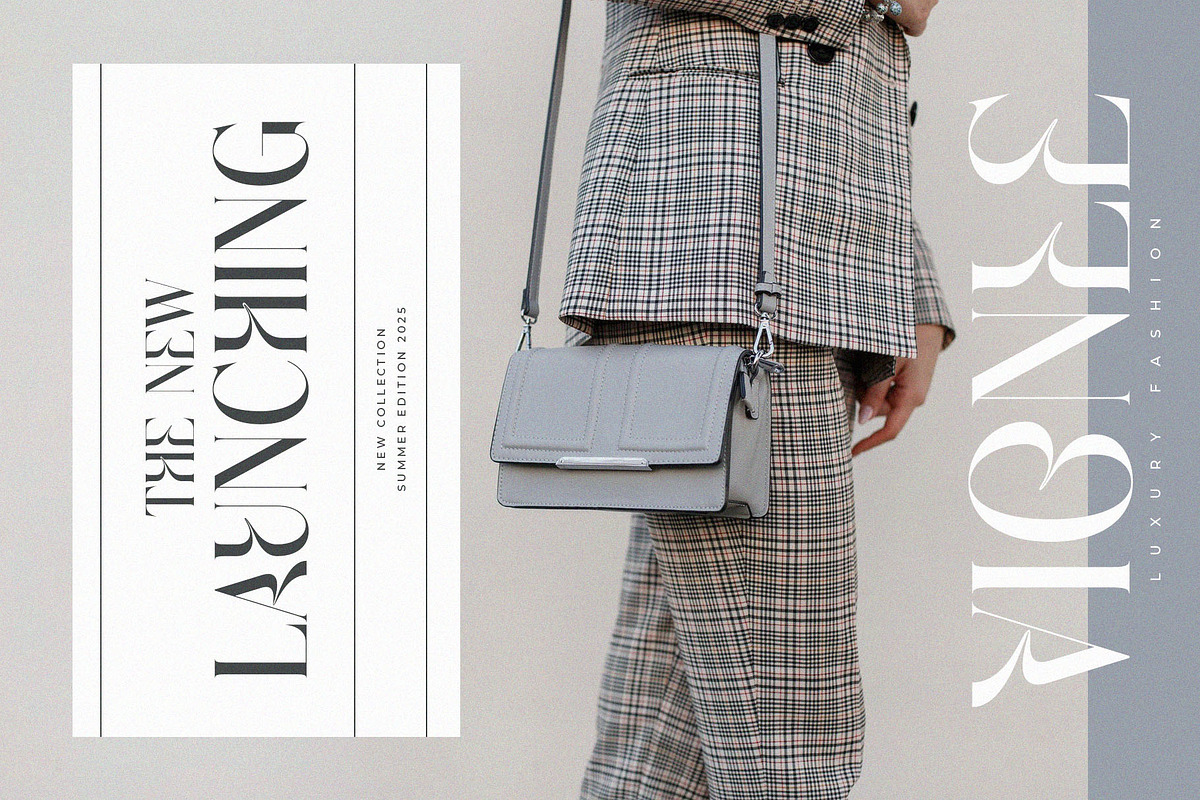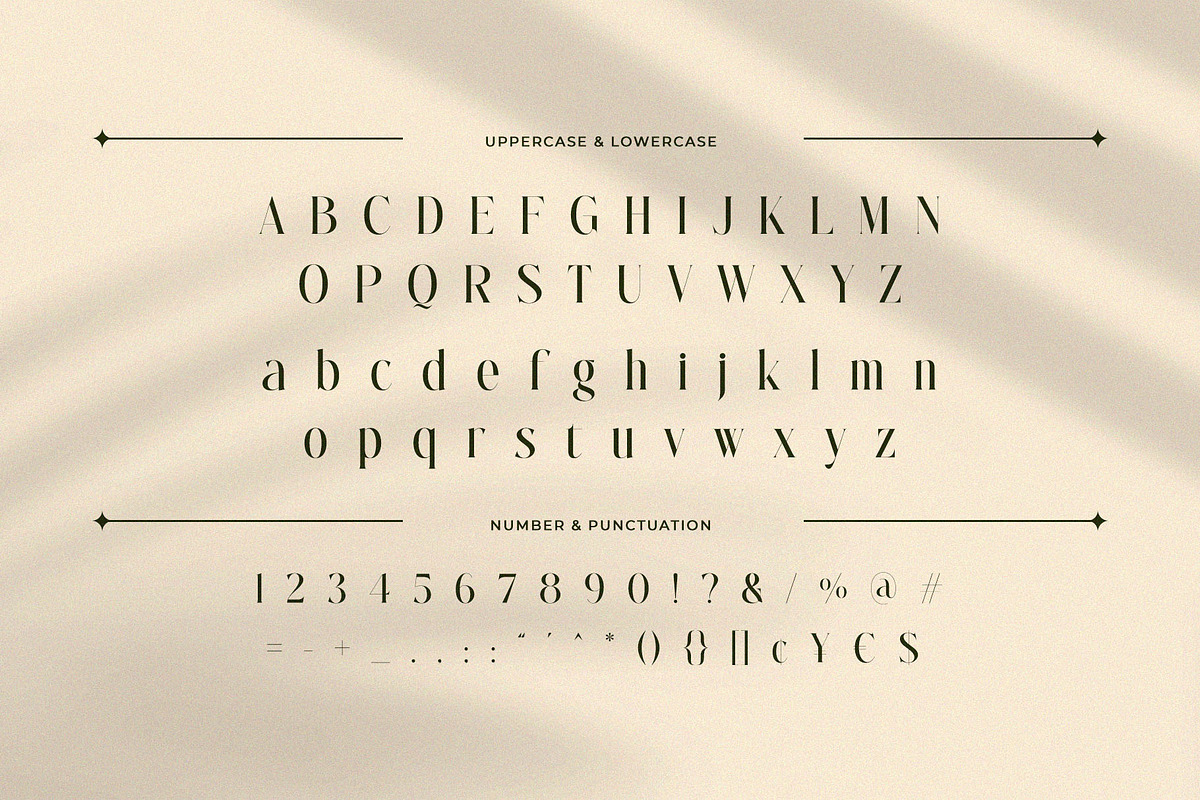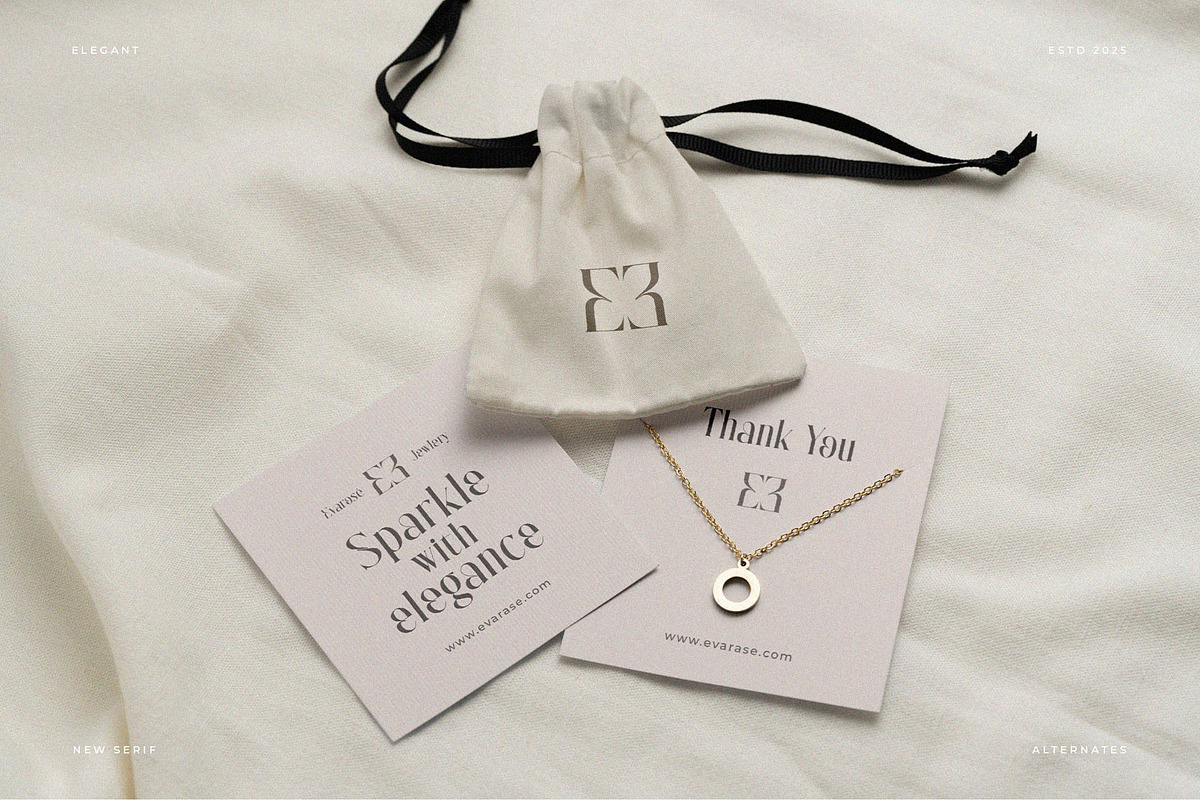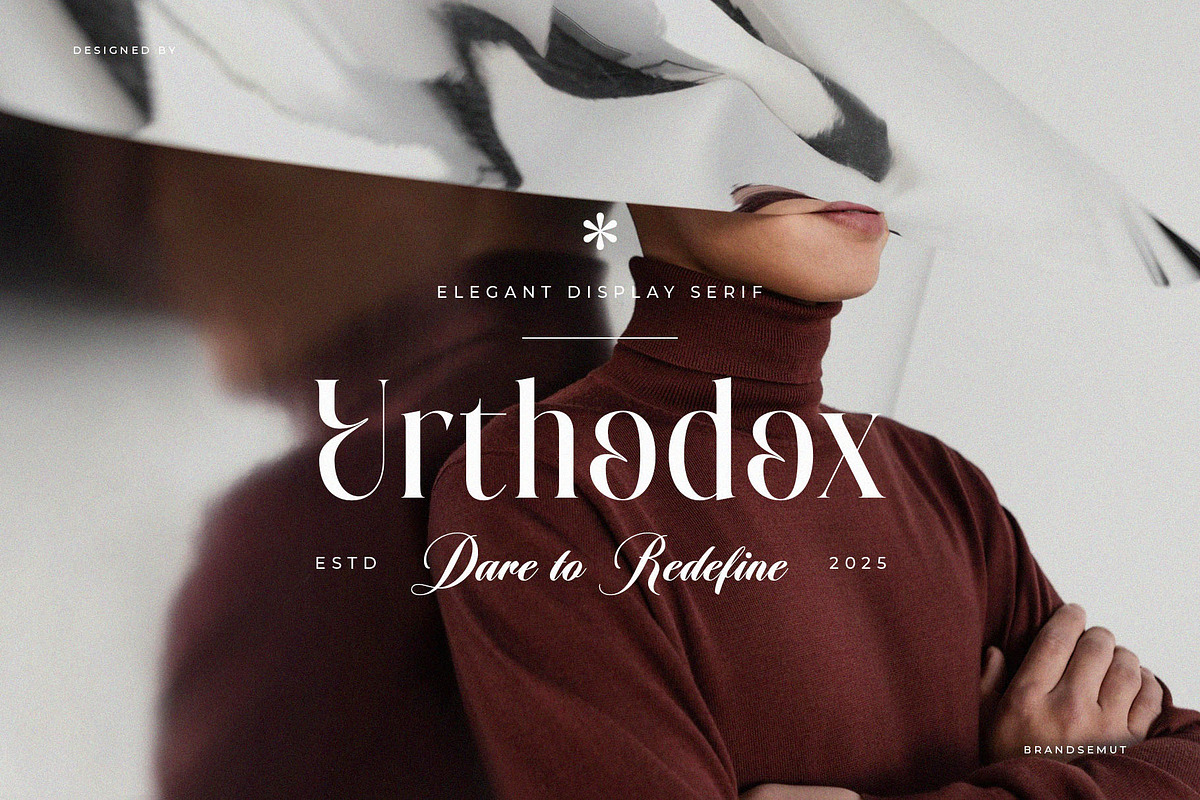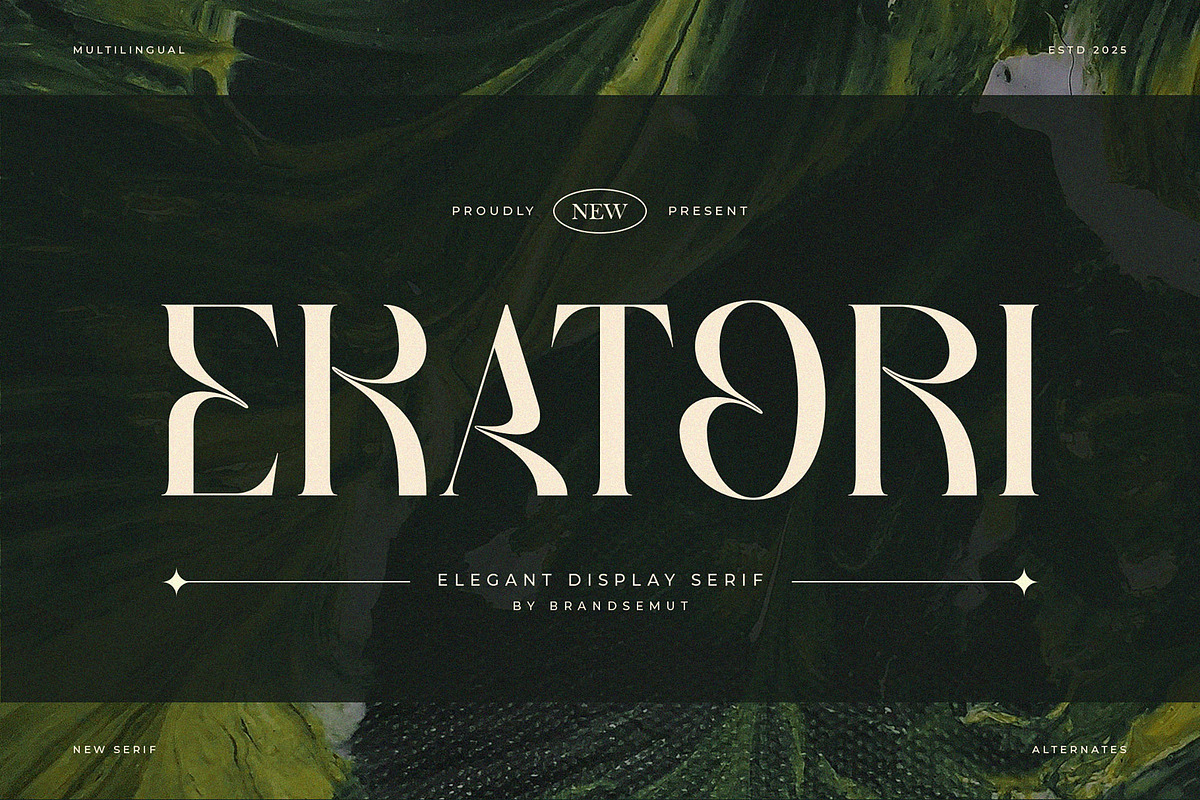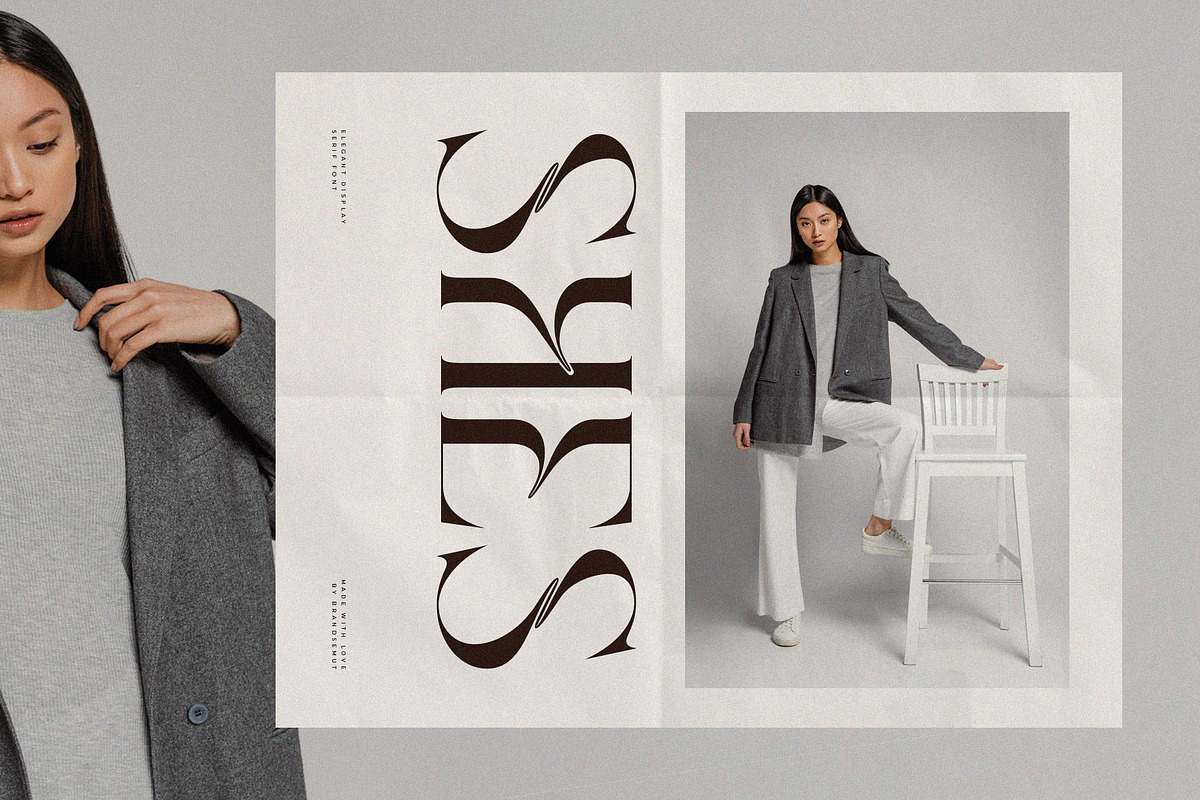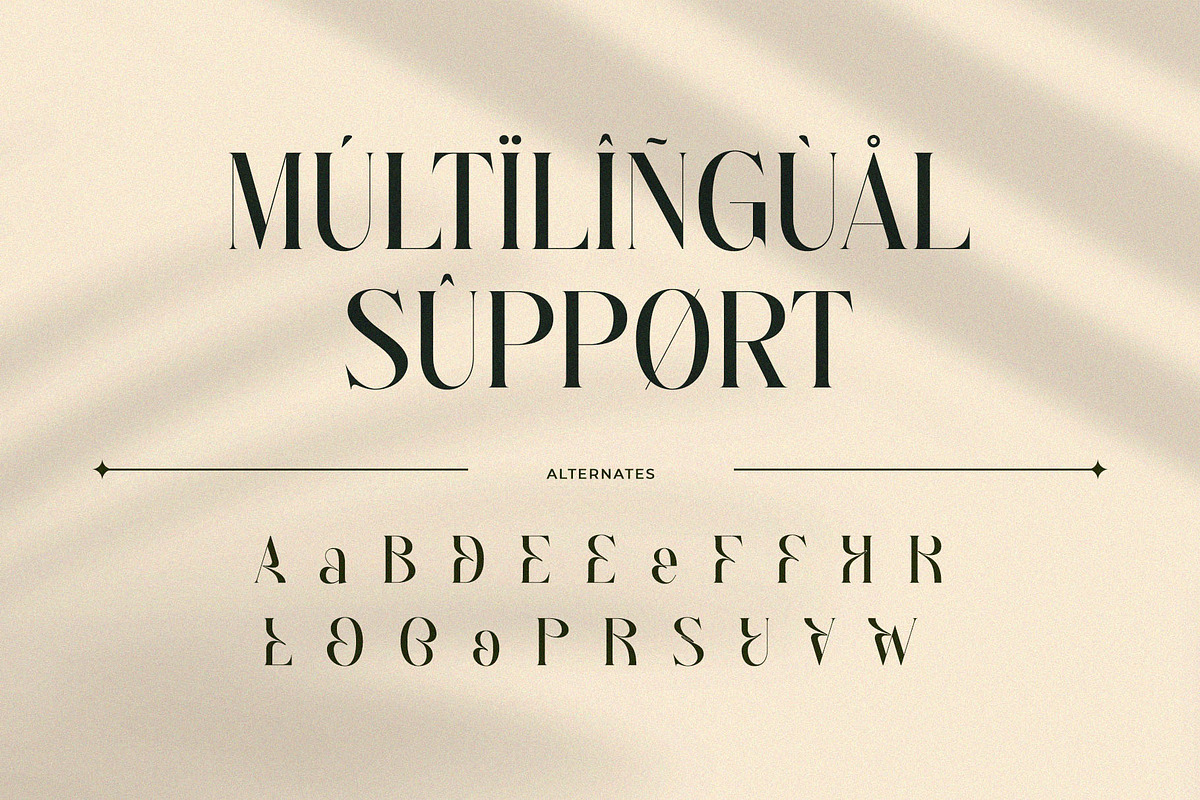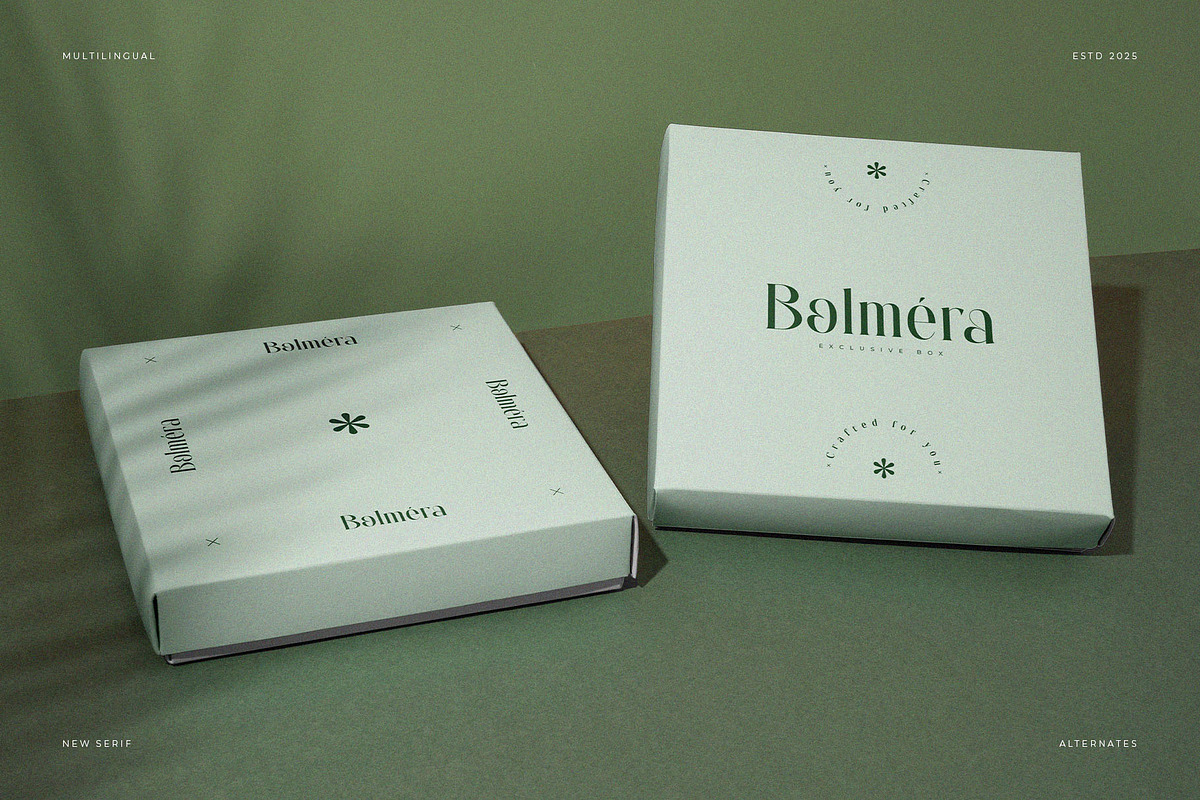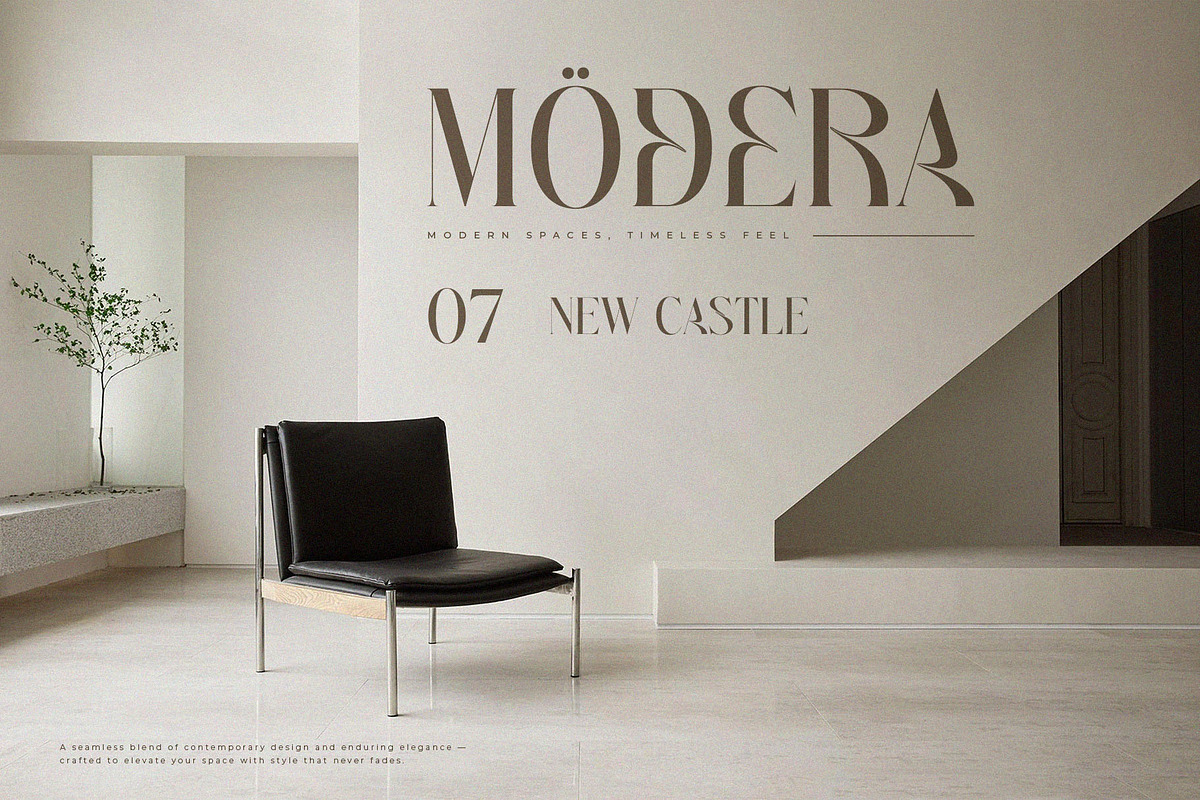
Ekatori – Elegant Display Serif Font
Ekatori – Elegant Modern Display Serif Font with Unique Alternates
Ekatori is an elegant and modern display serif font crafted with luxurious details and unique letter alternates. Perfect for branding, high-end packaging, logo design, fashion editorials, wedding invitations, and social media graphics. With its sophisticated curves and classy uppercase-lowercase combo, Ekatori stands out in both print and digital projects. Multilingual support and alternate glyphs make this font a versatile choice for designers looking for style and refinement.
Use Ekatori to elevate your creative work with a modern serif that combines tradition and innovation.